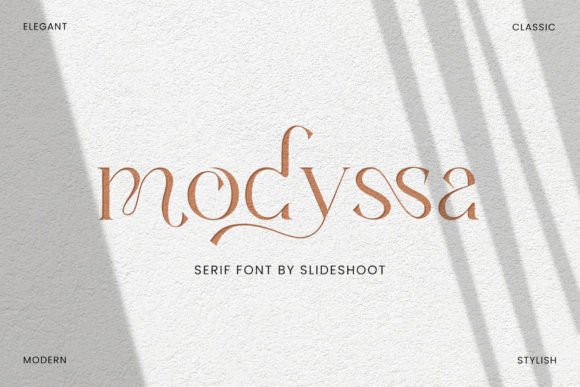
Looking for a font that exudes luxury and refinement? Look no further than Modyssa Font, a deluxe serif font that brings a touch of exclusivity to any design project. Created by Slide Shoot, this font family boasts refined serifs and elegant proportions that give it a regal presence.
Modyssa Font is perfect for branding and packaging projects that require a touch of sophistication. With its impeccable style, this font is sure to elevate any design to new heights.
But Modyssa Font isn't just stylish - it's also incredibly versatile. PUA encoded, you can effortlessly access all glyphs and swashes, making it easy to customize and tailor to your specific needs.
So why settle for ordinary fonts when you can use Modyssa Font to create extraordinary designs? Whether you're working on a luxury branding project, a high-end packaging design, or anything in between, Modyssa Font is the perfect choice for anyone who wants to add a touch of exclusivity and elegance to their work.